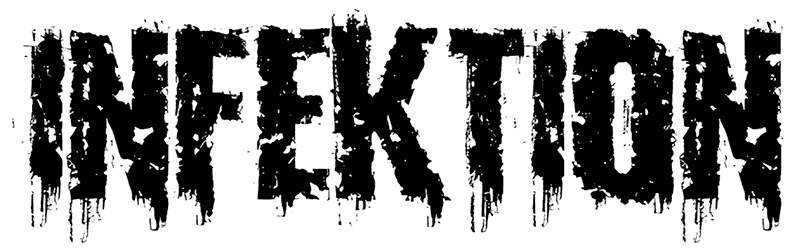
Infektion Font
Infektion is for you if you’re looking for a scary font with a not-so-precise design that will stop the viewer’s brain on your content. This dirty font has two super ghostly styles that allow you to embrace black letters.
The bloody embellishments in this dripping font are a clear advantage for Halloween party invitations, horror movie teasers, detective book covers, and computer games. Hence, disregard the lack of small letters when designing horror projects and click on the download button.
INFEKTION is inspired by post-apocalyptic, distressed/worn out designs like you would normally see in shows like “The Walking Dead”. INFEKTION is suited to any post-apocalyptic work as well as giving a grungy, dirty look to posters, logos & more!